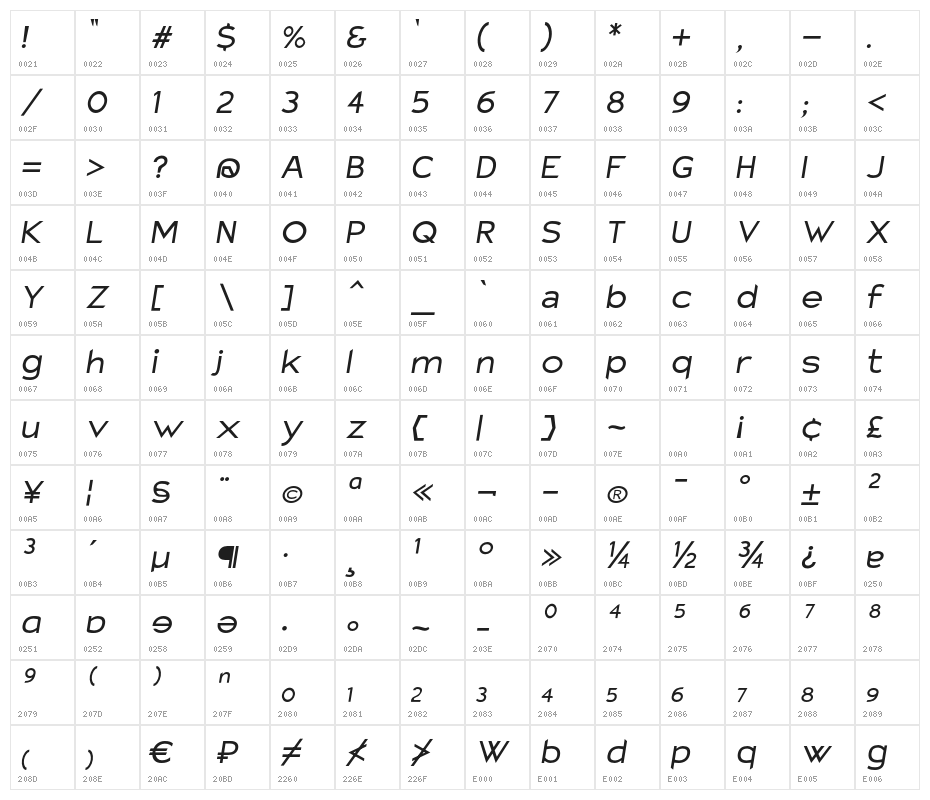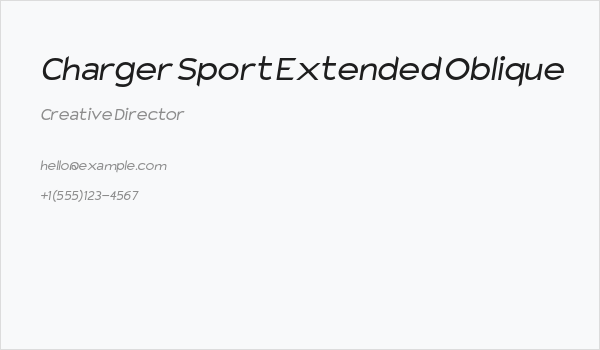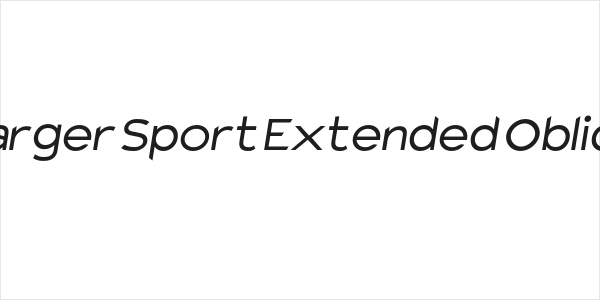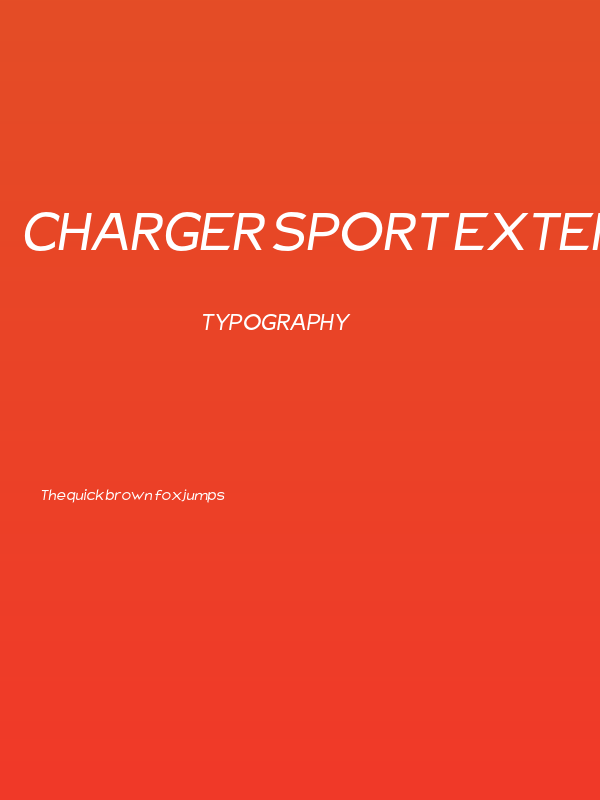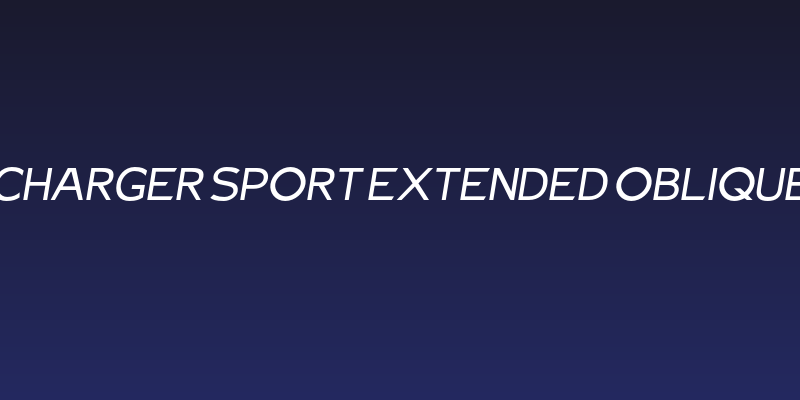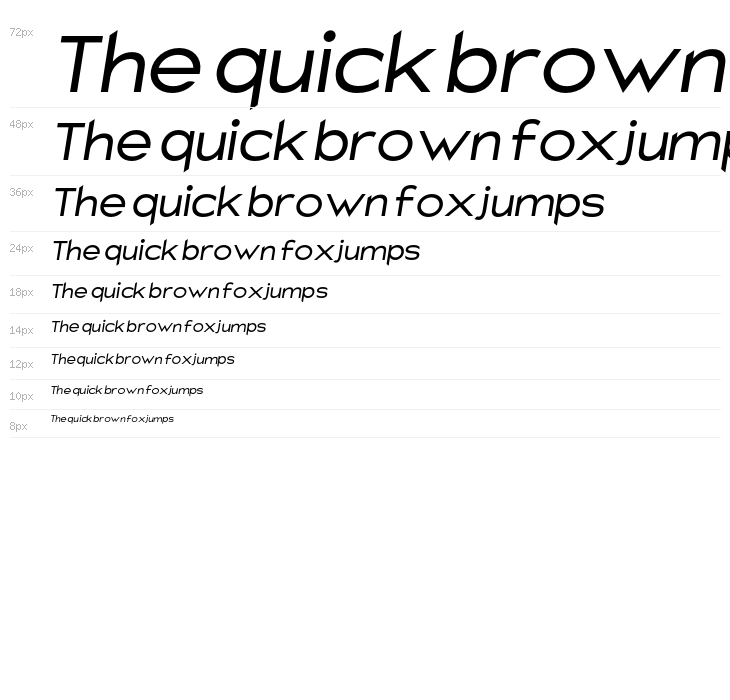
Charger Sport Extended Oblique Font
Charger Sport Extended Oblique Description
This font features a sleek and modern design with an oblique style, giving it a dynamic and sporty appearance. The characters are extended, providing a sense of motion and energy. The uppercase and lowercase letters maintain a consistent slant, enhancing the overall fluidity of the typeface. The numerals and special characters are designed to match the oblique and extended style, ensuring uniformity across all glyphs. This font is ideal for projects that require a contemporary and energetic look, such as sports branding, automotive design, or dynamic advertising campaigns.
| Proposed Projects | Ideal for sports branding, automotive design, dynamic advertising, and modern editorial layouts. |